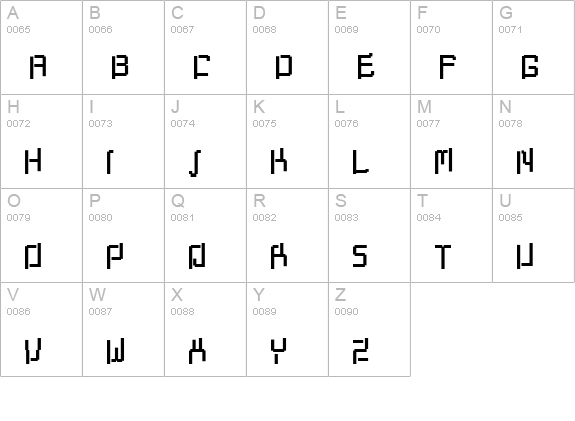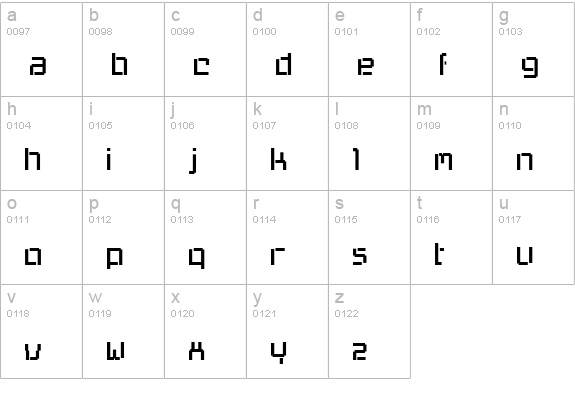
Progenisis font is a modern and versatile typeface that exudes elegance and sophistication. With its sleek lines and contemporary appeal, Progenisis is perfect for a wide range of design projects, from branding to editorial layouts. This font features a clean and minimalist look that ensures readability in any context. What sets Progenisis font apart is not only its aesthetic appeal but also its accessibility. This premium font is available for free download at FontsMarket.com, making it a valuable resource for designers and creatives looking to elevate their work without breaking the bank. Whether you're working on a professional project or a personal passion project, Progenisis font is sure to make a lasting impression. Unlock your creativity and download Progenisis font today to add a touch of sophistication to your designs.